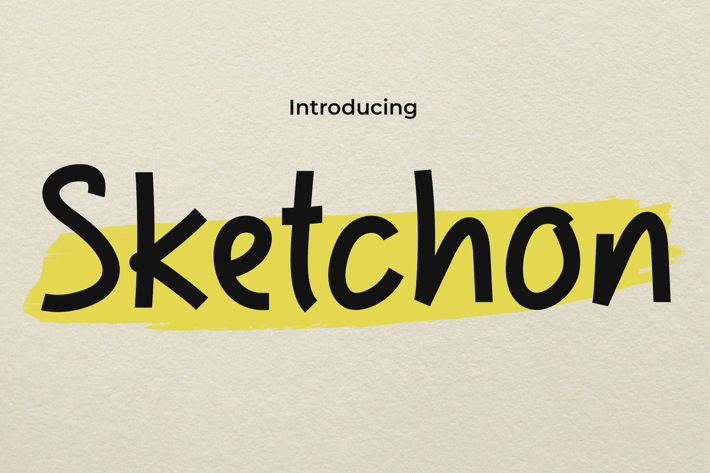
Handwritten Font - Sketchon
Sketchon is a charming handwritten font designed to evoke the spontaneity and creativity of a school environment. Its script style is perfect for educational projects, capturing the essence of teacher notes and children's handwriting. Sketchon adds a personal touch to logos, making brands feel more approachable and friendly. It is ideal for enhancing quotes with an informal, handwritten feel and crafting invitations that resonate with warmth. Whether used in posters, greetings, or packaging, Sketchon ensures each design is engaging and welcoming. This font is also excellent for branding, book covers, and event materials, providing a consistently playful and educational tone that is perfect for projects aimed at kids and educators alike.